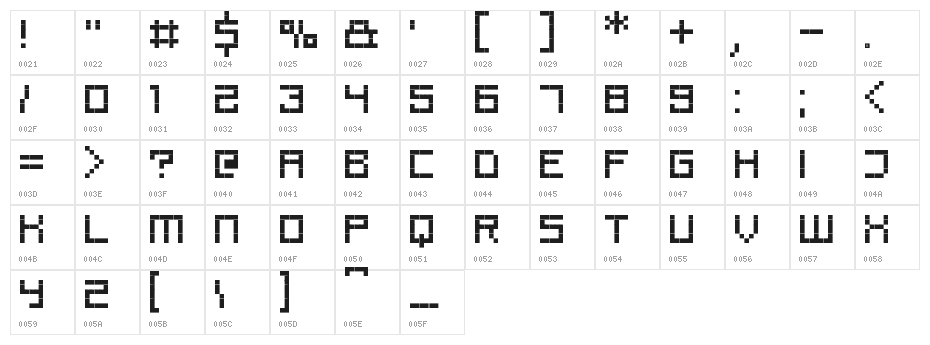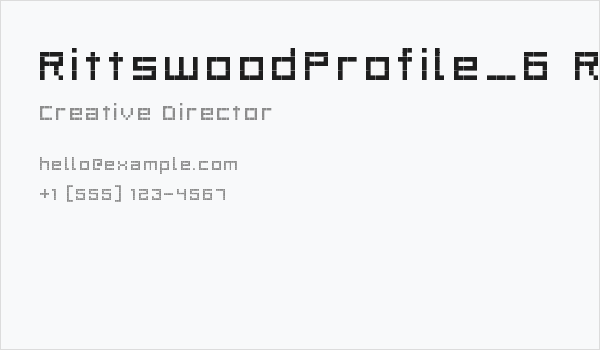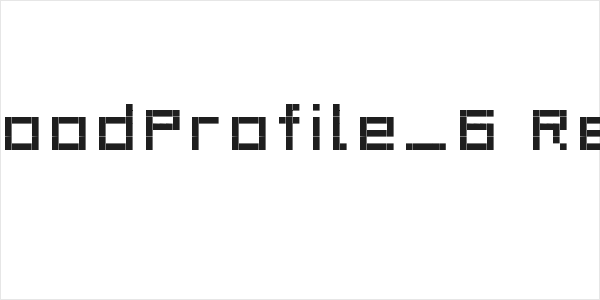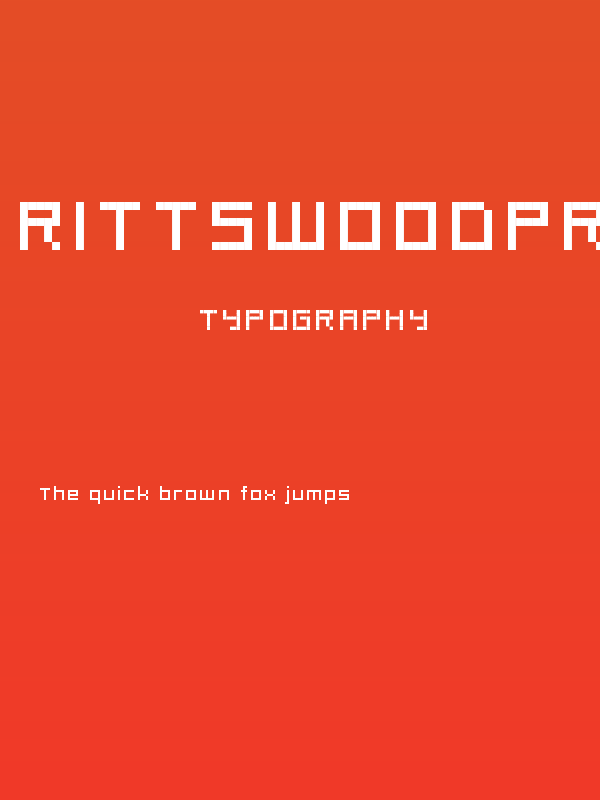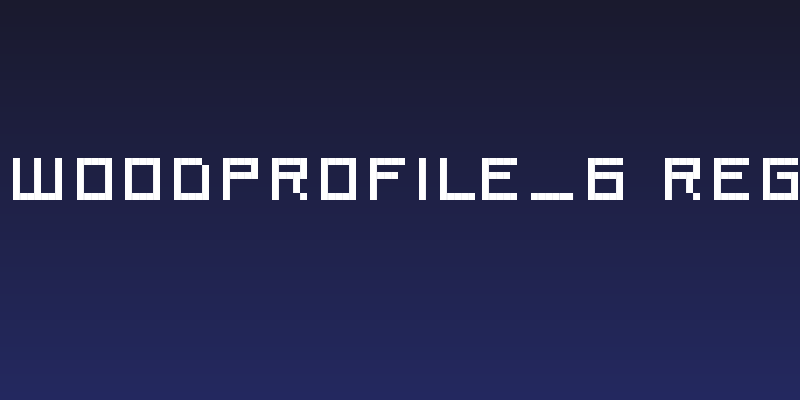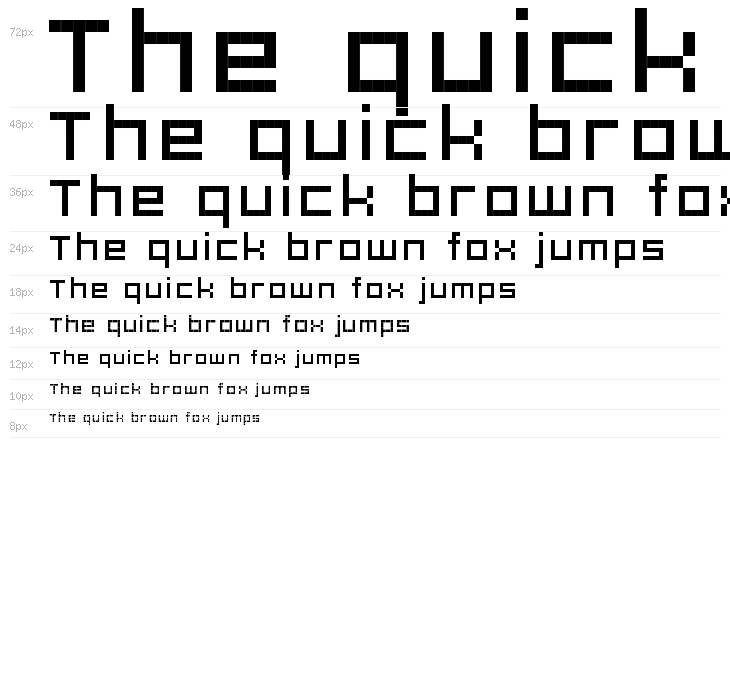
RittswoodProfile_6 Regular Font
RittswoodProfile_6 Regular Description
This font features a pixelated, blocky design reminiscent of early digital displays and retro video games. Each character is constructed with a grid-like precision, giving it a distinctly digital and geometric appearance. The uppercase and lowercase letters maintain a consistent height, contributing to a uniform and structured look. The numerals and special characters follow the same pixelated style, ensuring visual coherence across all glyphs. This font's unique aesthetic is both nostalgic and modern, making it suitable for projects that aim to evoke a sense of digital nostalgia or futuristic themes.
| Overall Style | Retro, Digital |
| Proposed Projects | Ideal for video game design, digital art projects, tech-themed branding, and retro-inspired posters. |